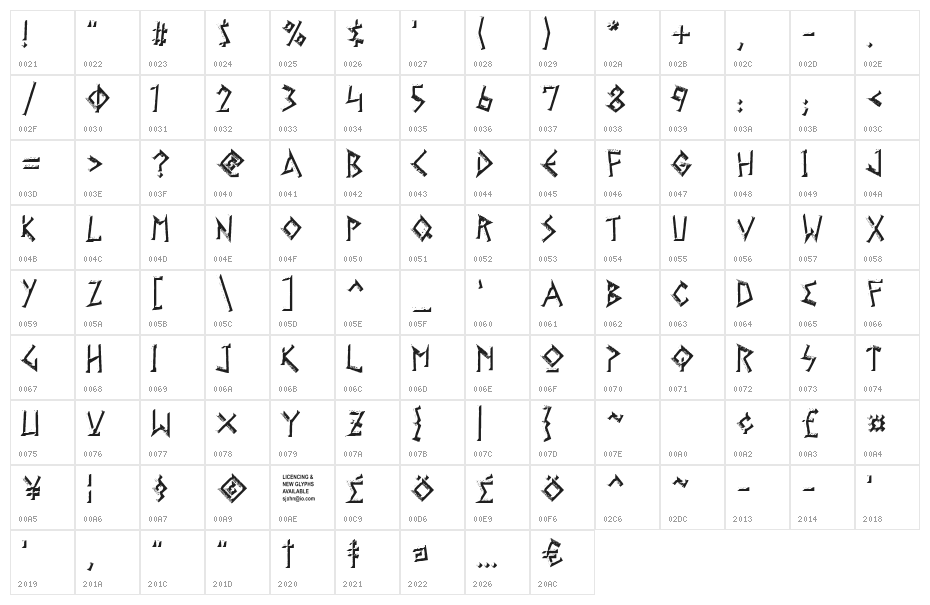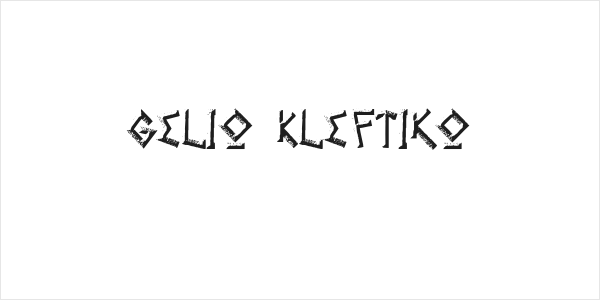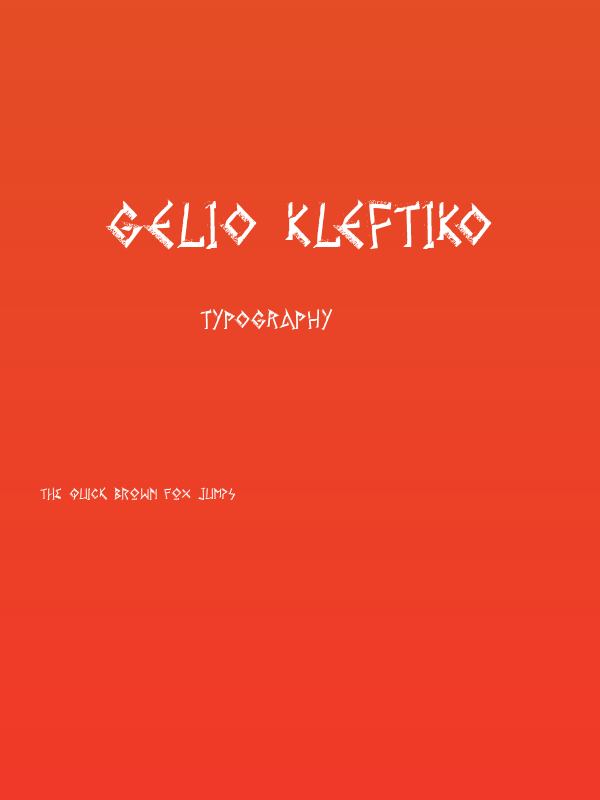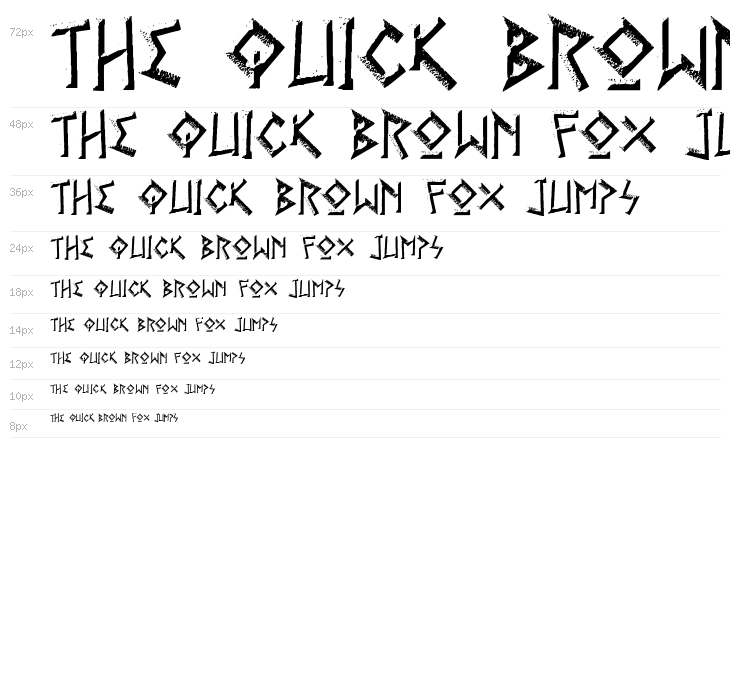
Gelio Kleftiko Font
Gelio Kleftiko Description
This font features a rugged, distressed style with a hand-drawn appearance. The characters are bold and angular, with a rough texture that gives them a gritty, urban feel. The uppercase and lowercase letters maintain a consistent jagged edge, while the numbers and special characters follow the same aesthetic. The font's unique, edgy design makes it stand out, ideal for projects that require a bold statement. Its uneven lines and textured finish add a dynamic and energetic vibe, perfect for creative and unconventional designs.
| Overall Style | Urban, Edgy, Distressed |
| Proposed Projects | Ideal for street art designs, music album covers, posters, and branding that requires a bold, unconventional look. |